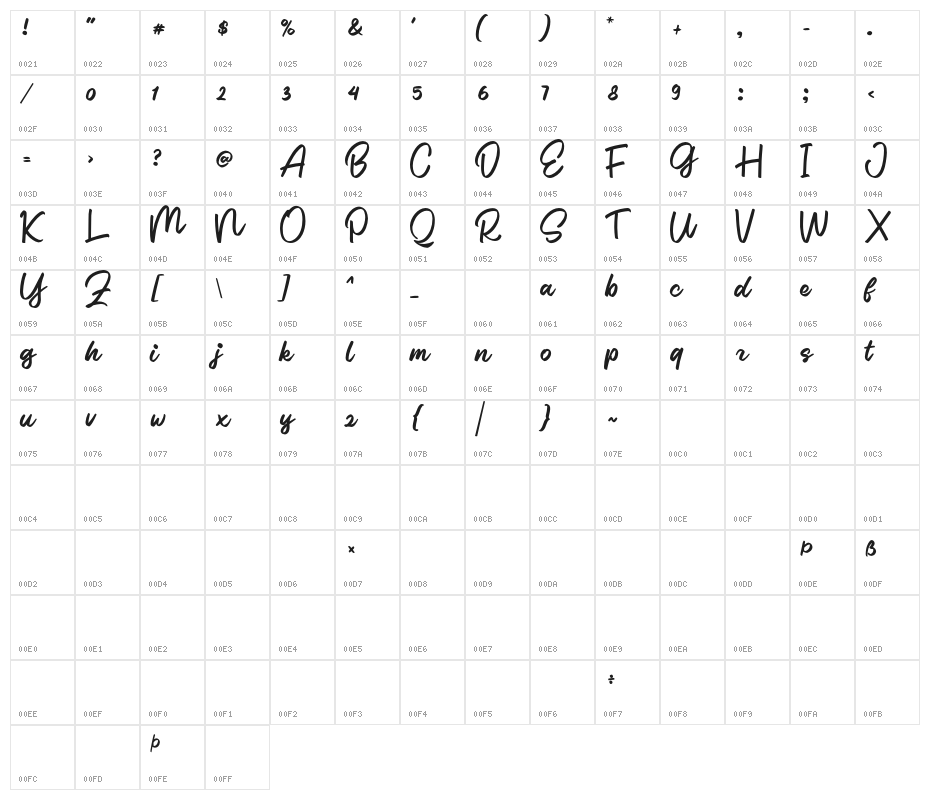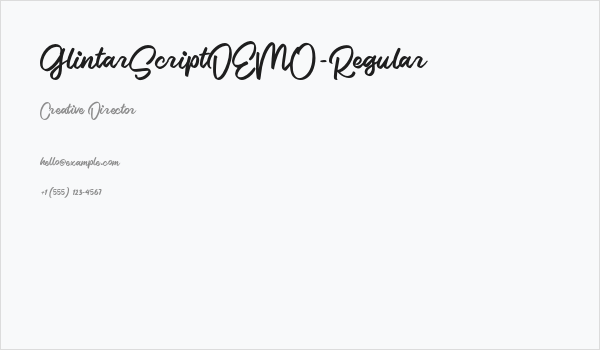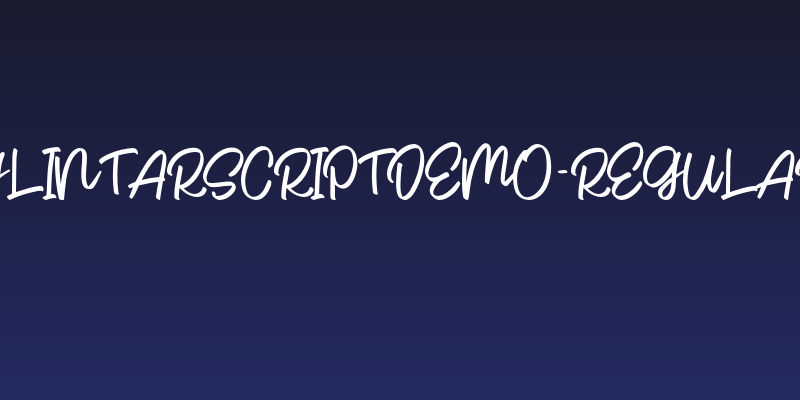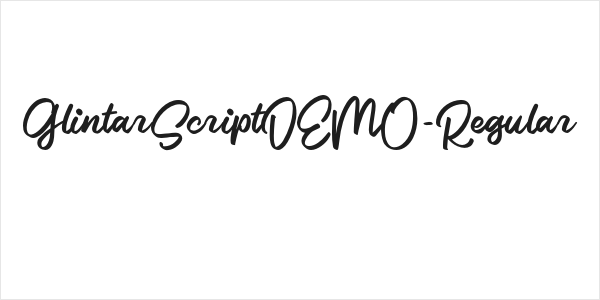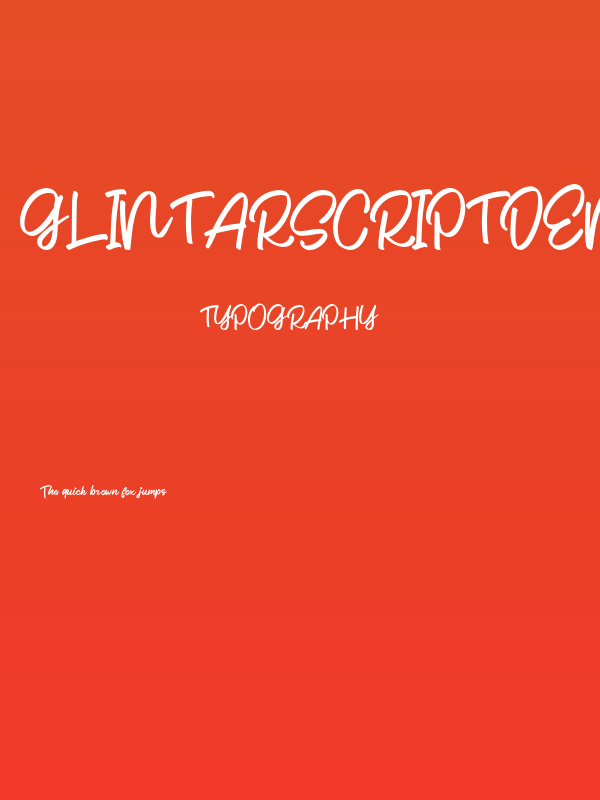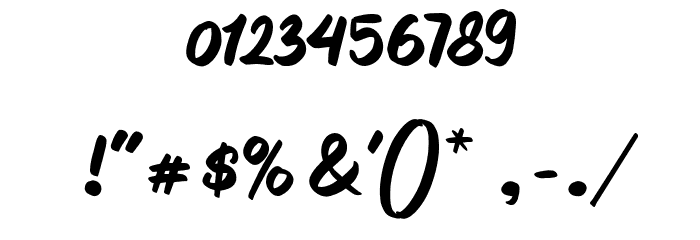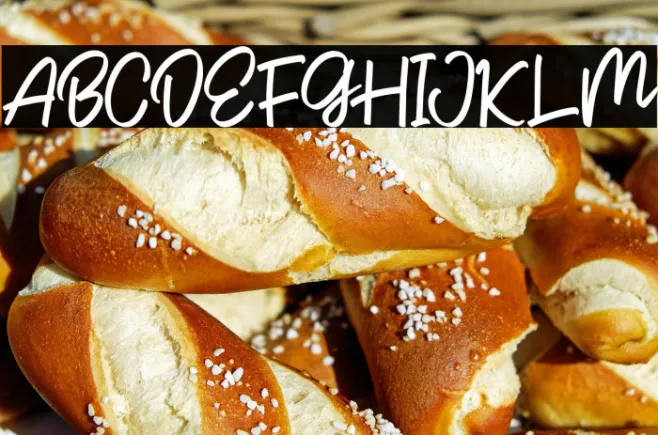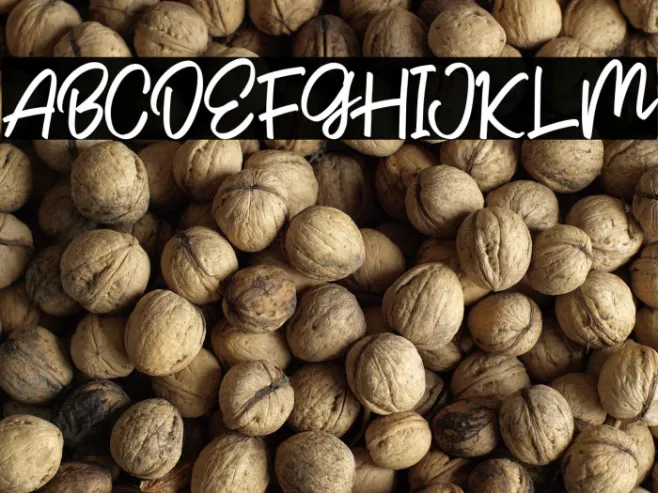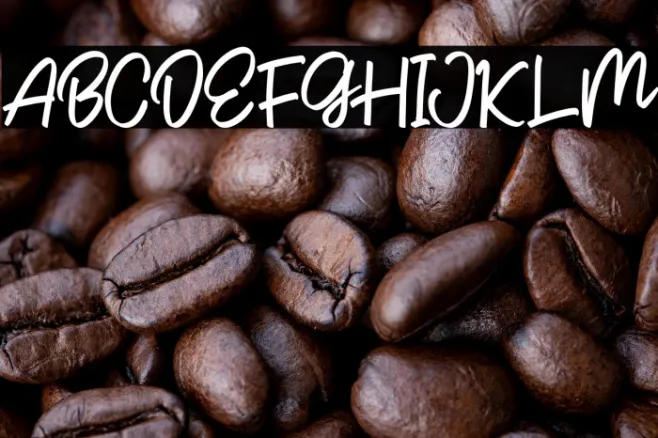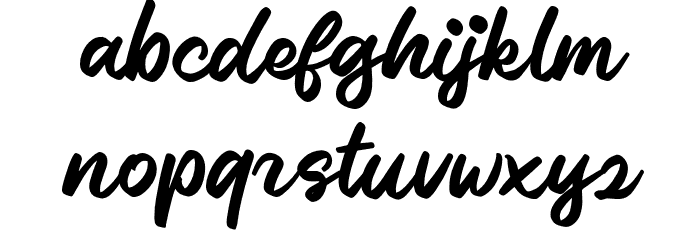
GlintarScriptDEMO-Regular Font
GlintarScriptDEMO-Regular Description
This font features a lively and flowing script style, characterized by its smooth, connected strokes and elegant curves. The uppercase letters are bold and slightly slanted, giving a sense of movement and dynamism. The lowercase letters maintain a consistent flow, enhancing readability while retaining a stylish flair. Numbers and special characters are crafted with the same attention to detail, ensuring a cohesive look across all text elements. The overall appearance is both modern and classic, making it versatile for various design needs.